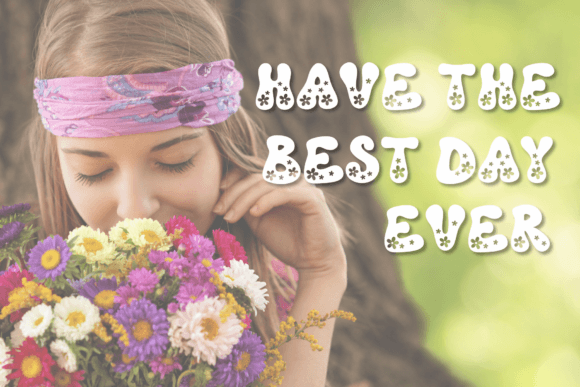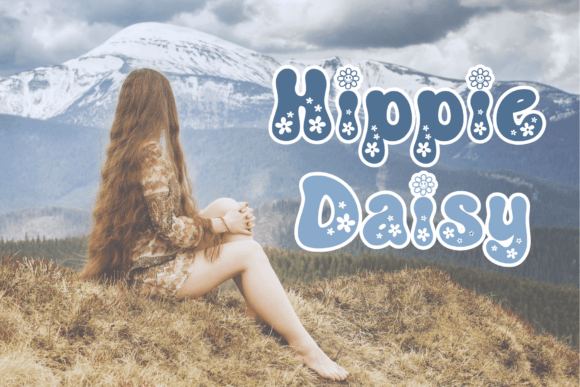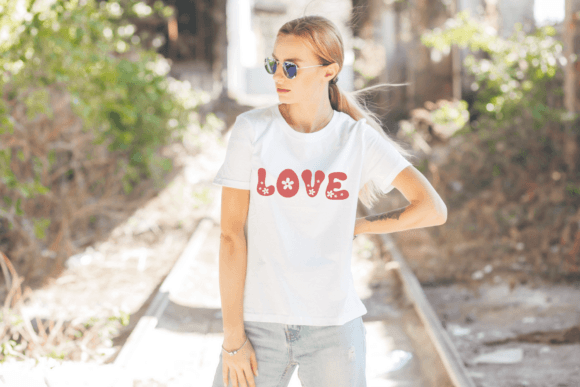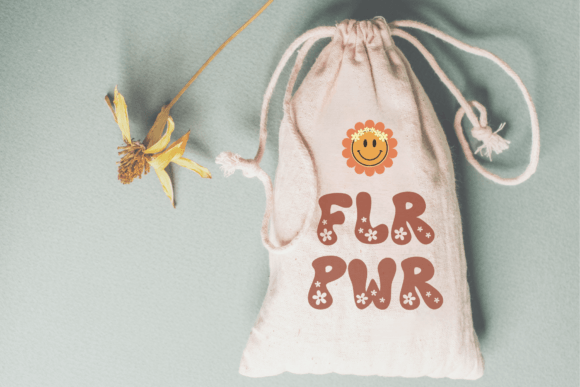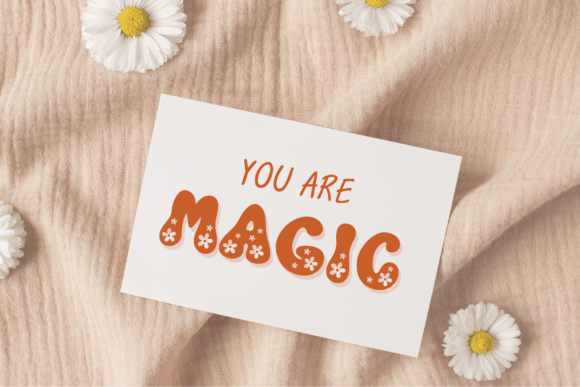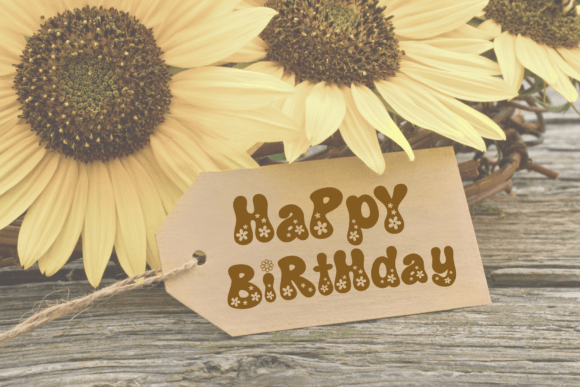
The Joy of Daisy Retro Font: A Designer’s Delight
I still remember the time I was working on a project for a client’s children’s party invitation. I had the design concept all sorted out, but I was stuck on finding the perfect font. The invitation needed to be playful, fun, and eye-catching. I tried font after font, but none seemed to capture the whimsy I was looking for. That’s when I stumbled upon the Daisy Retro Font. It was love at first sight! ✨
An Honest Review of Daisy Retro Font
- ✨ The font’s playful and quirky vibe instantly adds a joyful touch to any design.
- ✅ It’s perfect for creating eye-catching headings and titles that stand out.
- 😍 The retro feel of the font is reminiscent of classic children’s books and posters.
- 💻 It’s incredibly versatile and can be used for a wide range of design projects, from party invitations to branding and advertising.
While I absolutely adore the Daisy Retro Font, there are a few minor quirks to be aware of: 🤔
- ⚠️ The font may not be suitable for body text or long paragraphs, as it’s primarily designed for display purposes.
The Backstory of Daisy Retro Font
The Daisy Retro Font was designed with the intention of capturing the carefree spirit of childhood summers. The designer, inspired by vintage children’s books and retro posters, aimed to create a font that would evoke feelings of joy and playfulness. 💫
Q: What type of projects is the Daisy Retro Font best suited for?
A: The Daisy Retro Font is perfect for projects that require a playful and whimsical touch, such as children’s party invitations, posters, branding, and advertising.